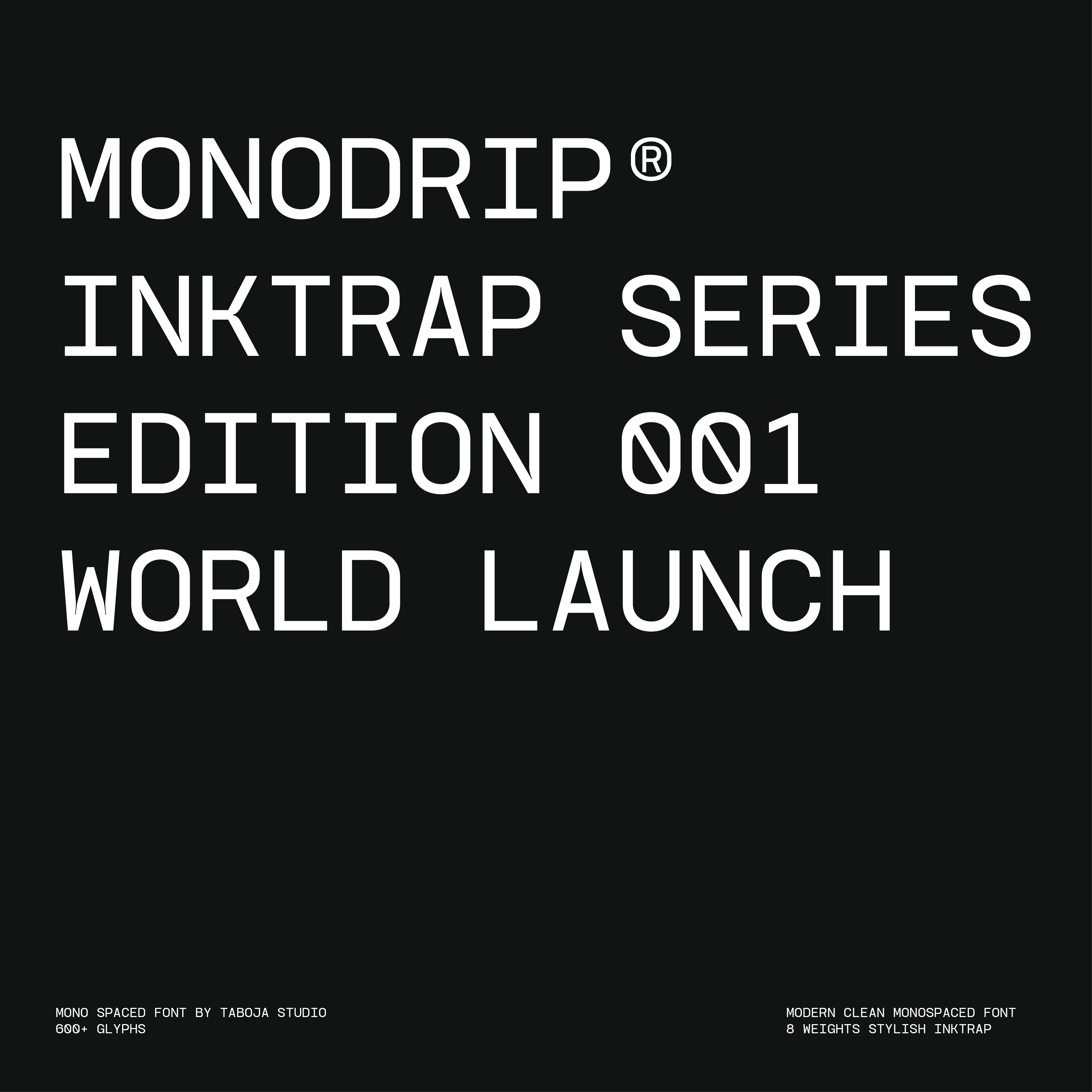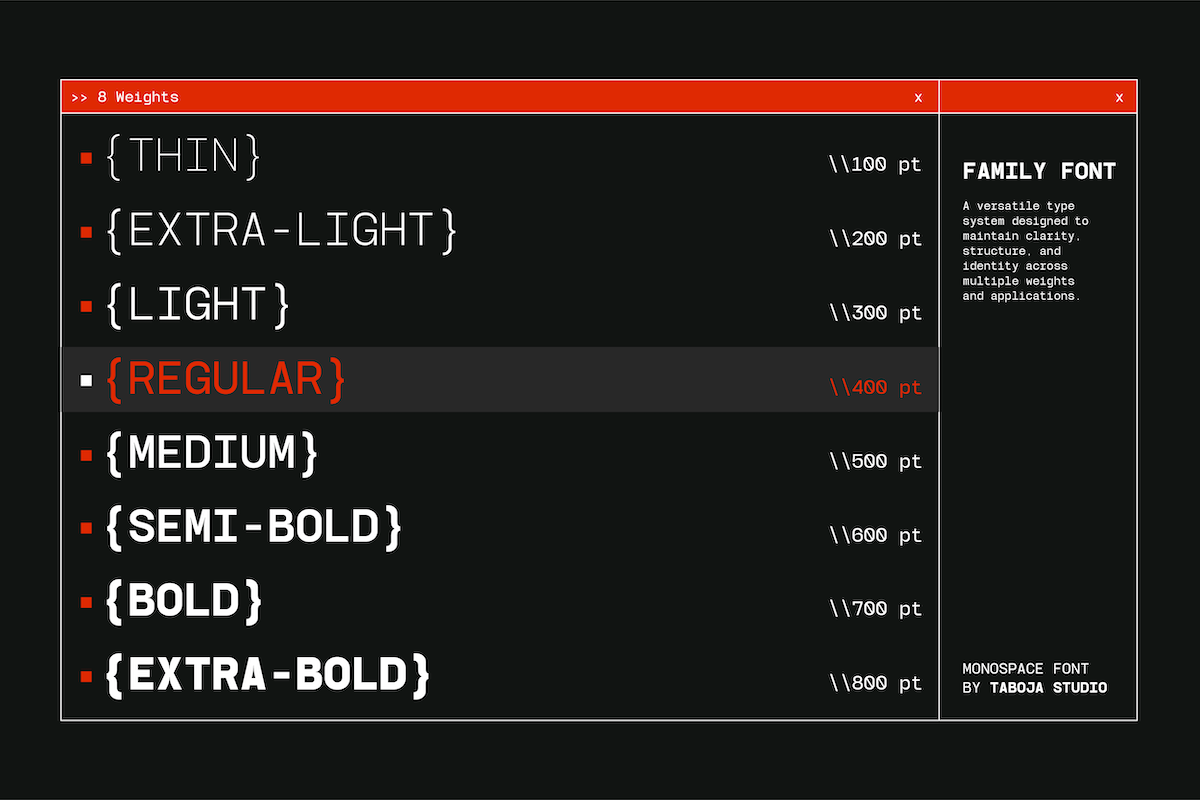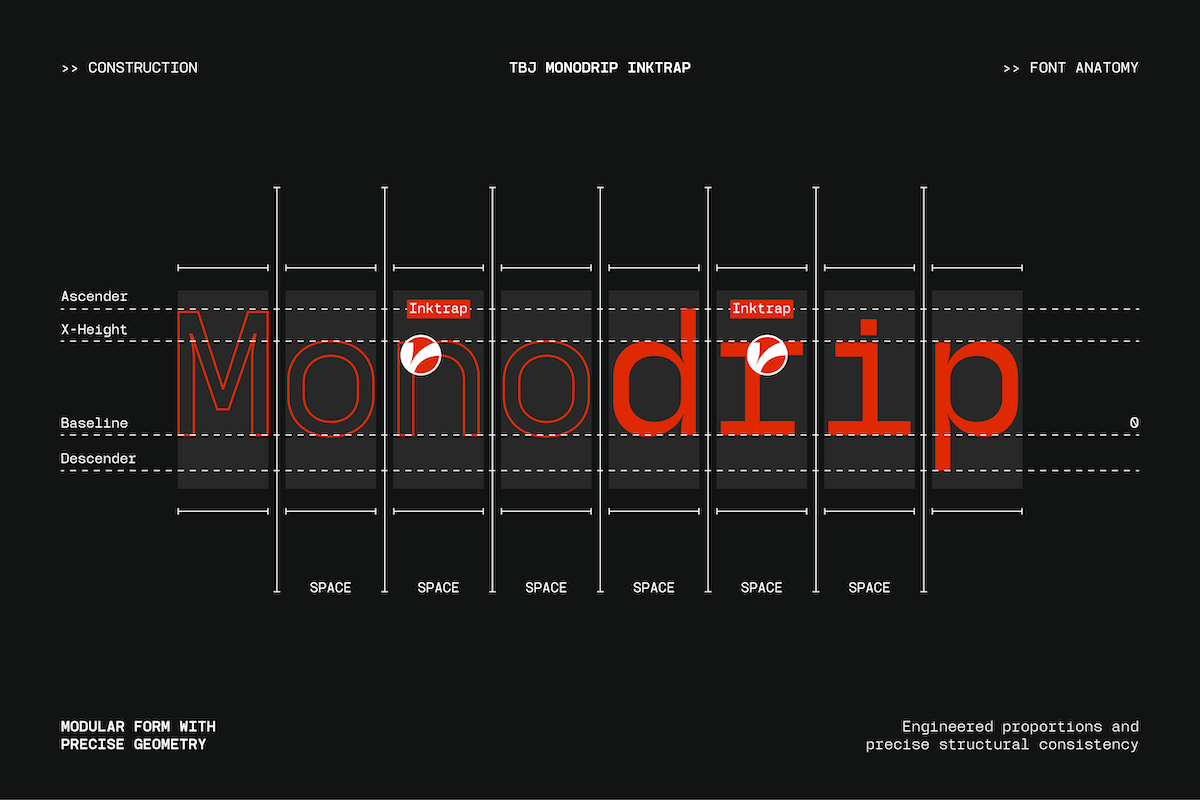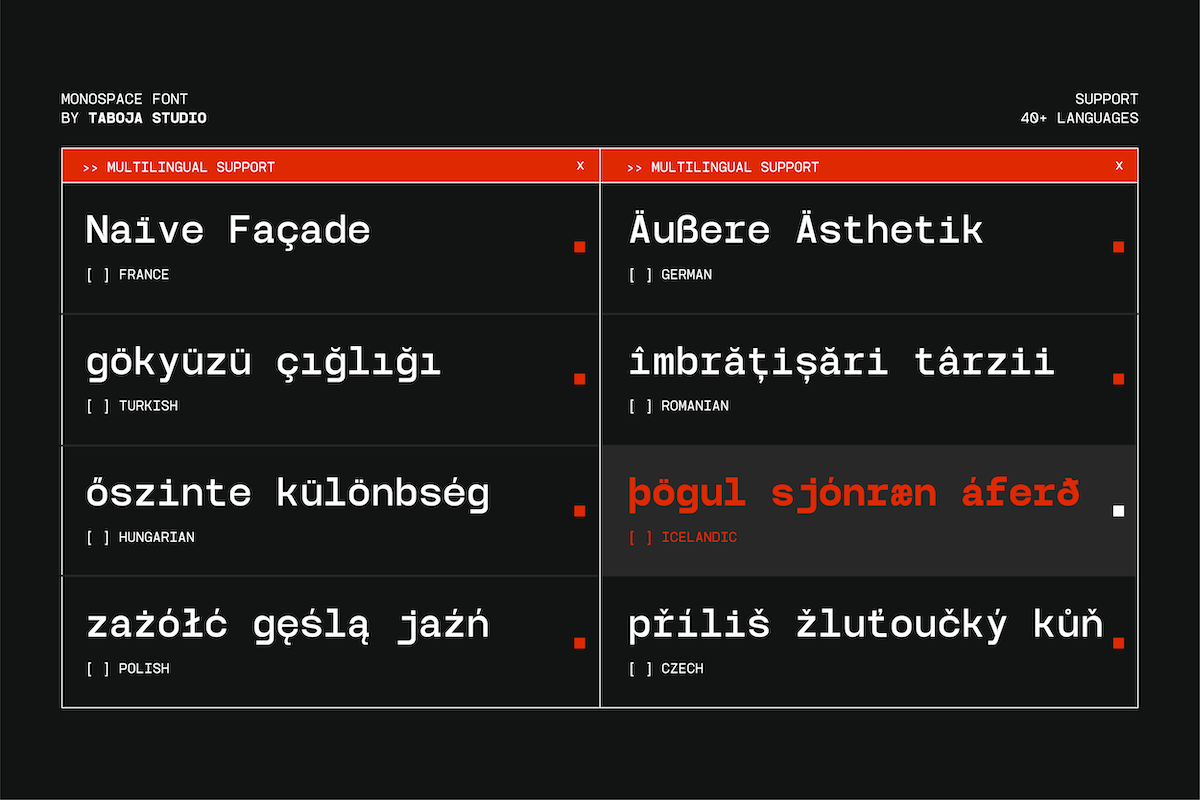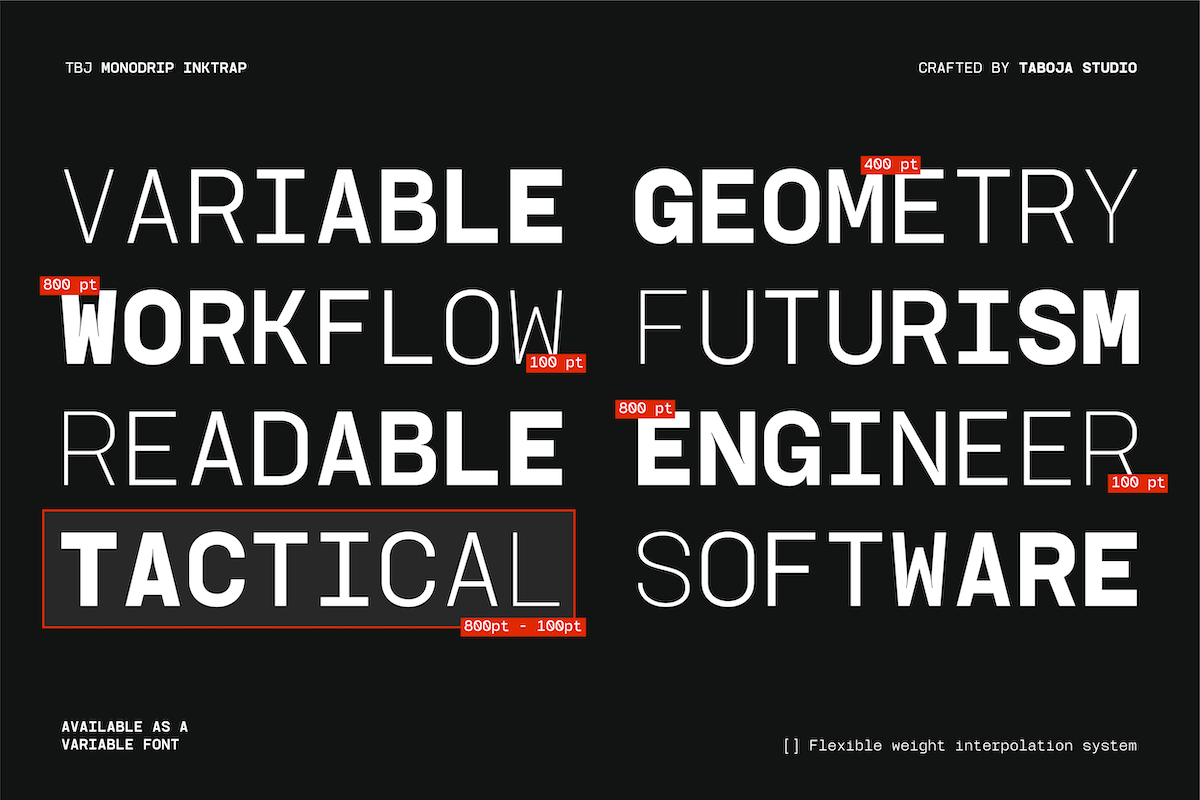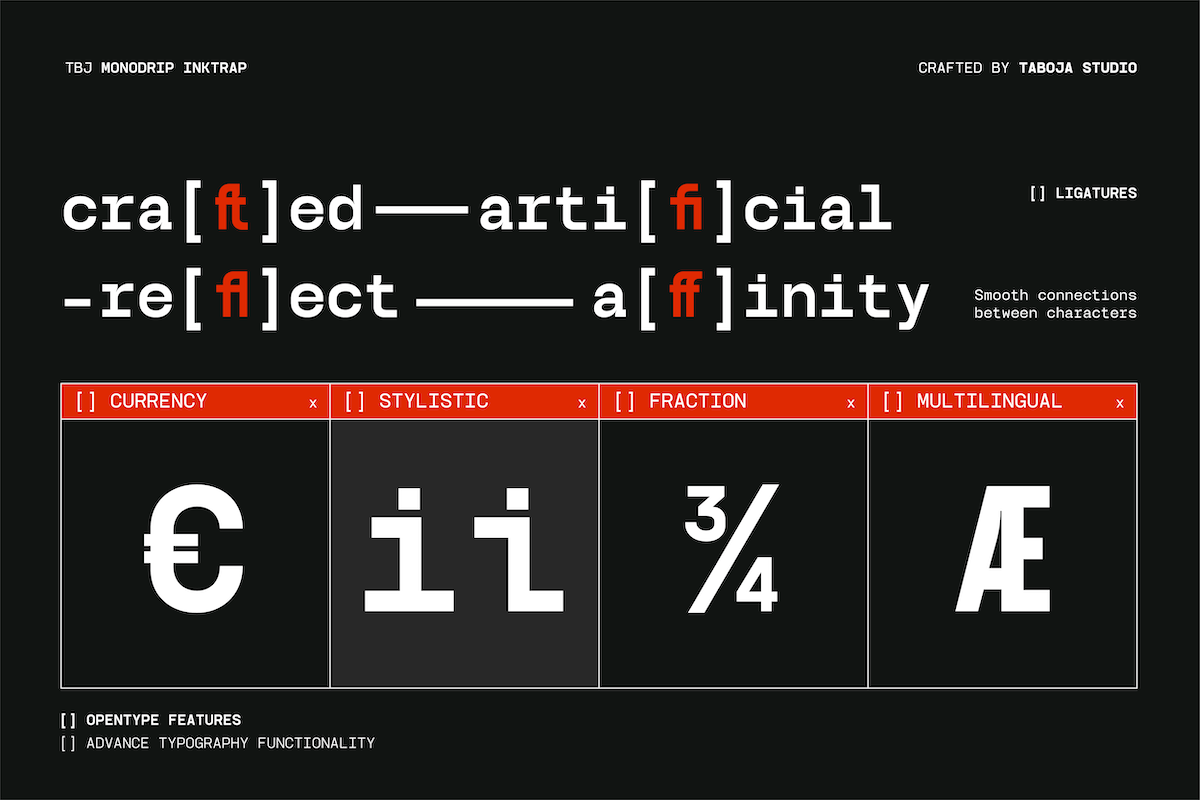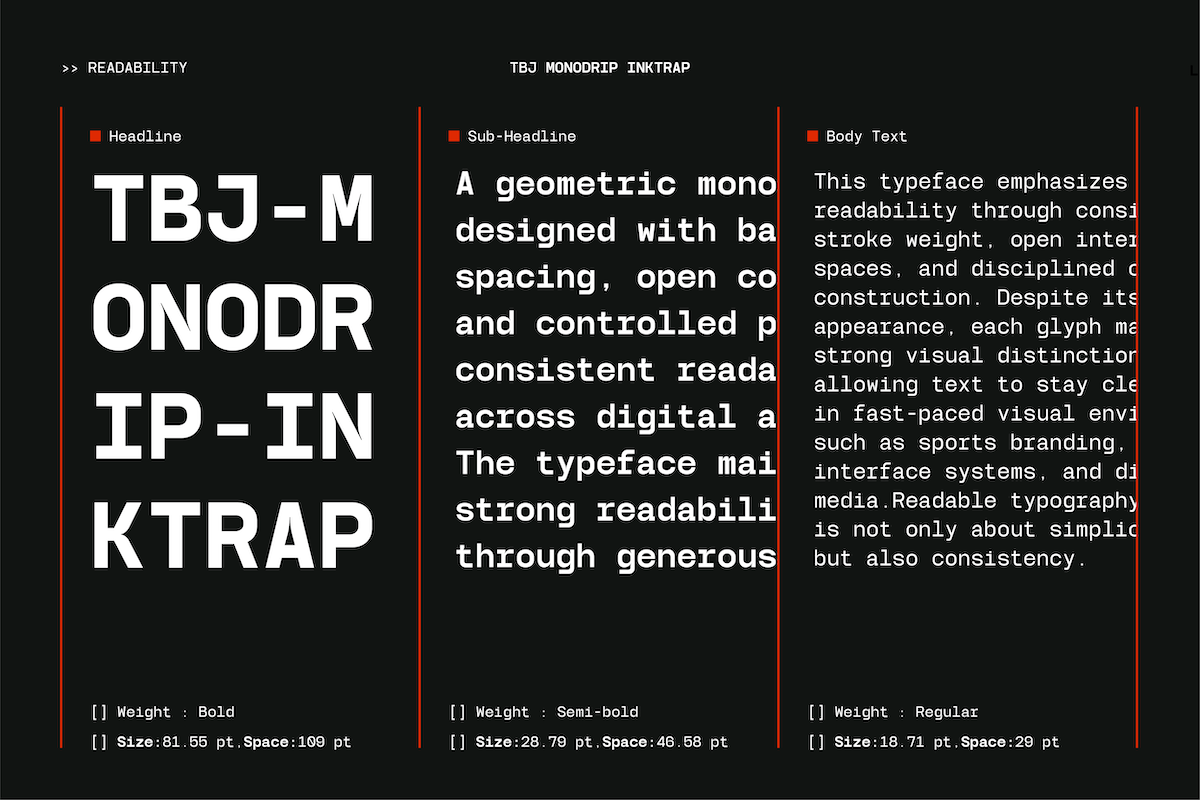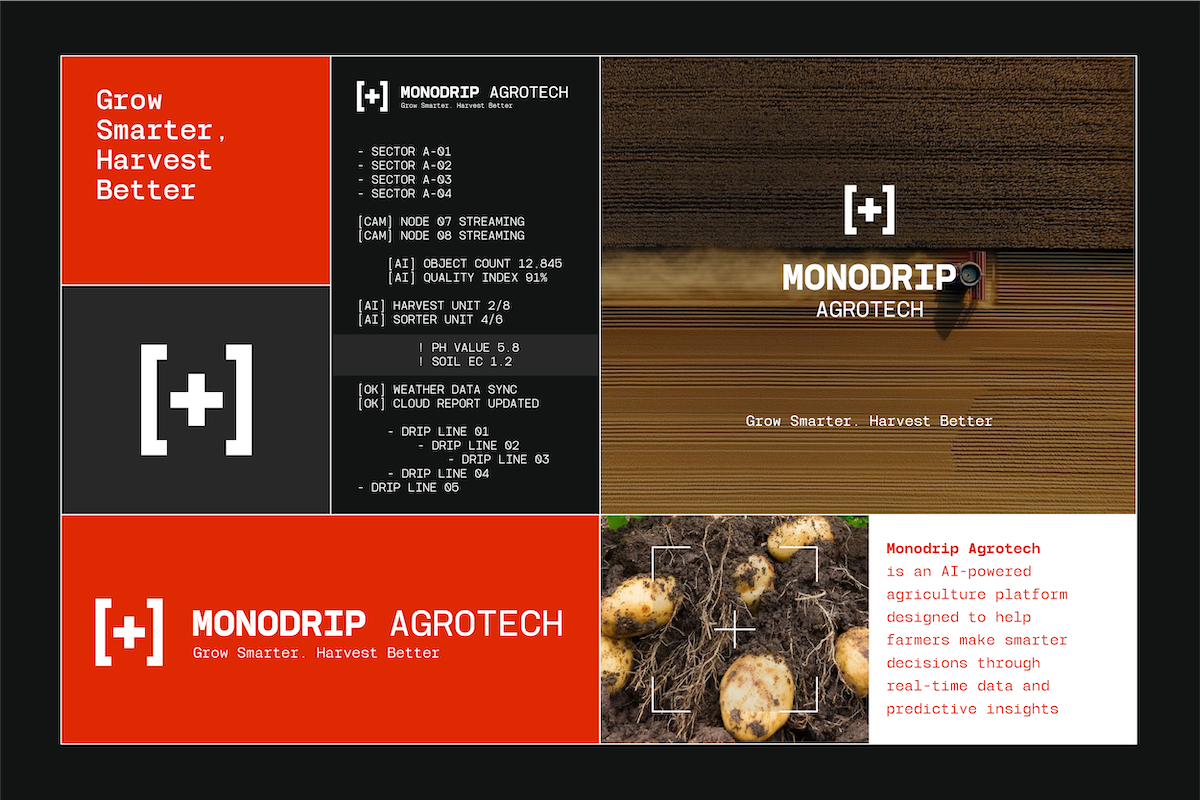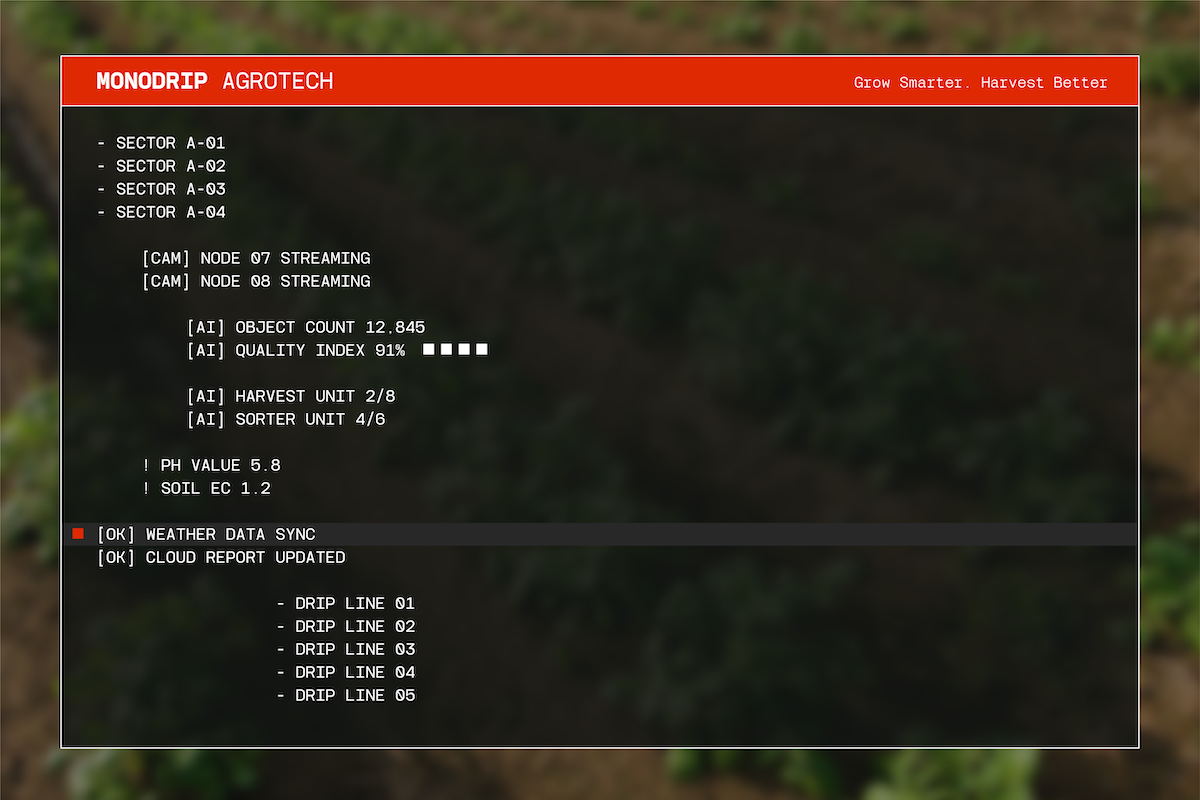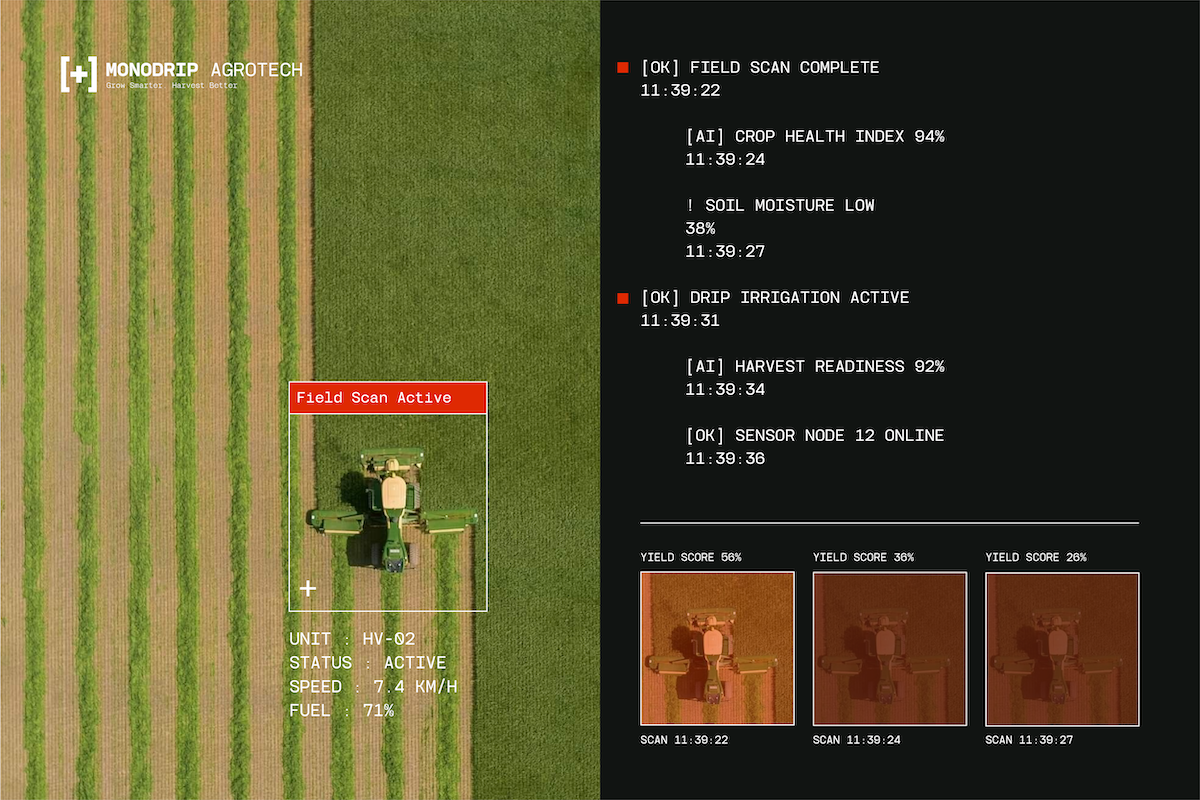
TBJ Monodrip Inktrap Monospace Font Family
TBJ Monodrip is an inktrap monospace typeface built for the reality of small size code and terminal text, where ink traps have always solved the problem tight joints create at low resolution. It carries that ink trap tradition into a fixed width grid, engineered so every character holds its shape instead of blurring into its neighbors. Eight weights, from Thin to Extra Bold, give it a working range most monospace fonts skip entirely.
The ink traps cut into the inside corners of each letterform, keeping strokes distinct at the exact spot where curves and straight edges meet and small monospace text usually clogs. Every glyph sits on the same fixed width, so columns of code, tables, and terminal output stay aligned without switching to a substitute font that only holds up at Regular weight. Moving from Thin to Extra Bold, the ink traps scale with the stroke, so the heavier weights stay open instead of collapsing into dark knots.
Monodrip is built first for code editors, IDE themes, and terminal interfaces, where fixed width alignment and small size clarity matter more than style. It moves just as easily into technical documentation, API references, and developer dashboards, and works in less expected places too, like hardware packaging and conference badge systems for engineering focused brands.
At TBJ, we build typefaces that solve a reading problem before they solve a style problem. Monodrip is engineered legibility for people who spend their day inside a monospace grid.
The TBJ Monodrip Inktrap Monospace Font Family is a fixed-width typeface designed for clarity in small size code and terminal text, featuring eight weights from Thin to Extra Bold. Its ink traps enhance legibility by maintaining distinct strokes at low resolutions, ensuring that every character retains its shape and alignment in a monospace grid.